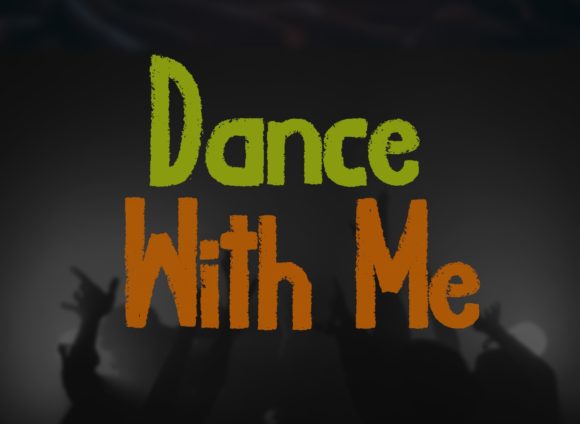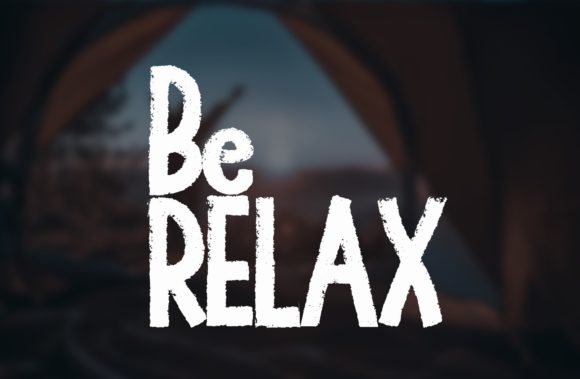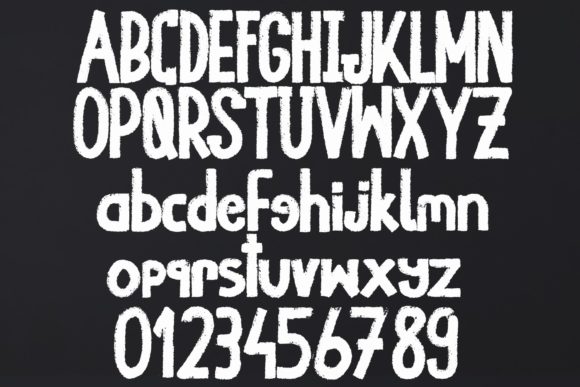
Introduction to Hanker Font
Hanker is a strong lettered and brushed display font.
Chunky and natural, this font will be ideal for a wide range of casual or friendly designs .
Key Features of Hanker Font
Why Choose Hanker Font?